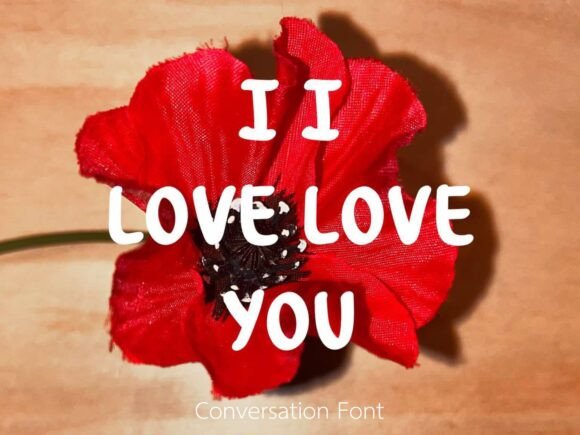
Express Love with Style: The Conversation Font ❤️✨
Are you looking for a font that speaks the language of love, warmth, and heartfelt emotions? Look no further than the Conversation Font. This charming, hand-drawn font is perfect for romantic messages, personalized cards, and heartfelt projects, allowing you to express your feelings in a unique and beautiful way.
Why Choose Conversation Font?
Playful and Handcrafted
The Conversation Font adds a personal, cozy vibe to your creations. Its handcrafted nature ensures that each letter and character is unique, giving your designs a touch of warmth and personality.
Versatile Use
This font is perfect for a wide range of applications, including greeting cards, wedding invitations, love letters, and more. Its versatility allows you to use it for various projects, making it a valuable addition to your font collection.
High-Quality Design
The Conversation Font boasts a crisp and professional design, making it ready to make an impact on any platform. Whether you’re designing for digital or print, this font ensures that your message is conveyed in a clear and elegant manner.
The Power of Typography in Emotional Expression
Typography plays a crucial role in emotional expression, and the Conversation Font is designed to help you convey your feelings in a way that resonates with your audience. The right font can evoke emotions, create a mood, and even influence the way your message is perceived. With the Conversation Font, you can add a touch of warmth, love, and personality to your designs, making them more relatable and engaging.
Perfect for Romantic Occasions
The Conversation Font is particularly well-suited for romantic occasions such as Valentine’s Day, anniversaries, and weddings. Its charming and hand-drawn nature makes it perfect for expressing your love and affection in a unique and beautiful way. Whether you’re designing a romantic message, a personalized card, or a heartfelt letter, this font is sure to help you convey your emotions in a way that touches the heart.
Example Use Cases:
- Valentine’s Day cards and messages
- Wedding invitations and stationery
- Anniversary greetings and messages
- Love letters and personalized cards
- Romantic quotes and phrases
Tips for Using Conversation Font Effectively
Pair with Other Fonts
To add visual interest and create a unique look, consider pairing the Conversation Font with other fonts. This can help you create a hierarchy of information and add depth to your designs.
Experiment with Colors
The Conversation Font looks great in a variety of colors, so don’t be afraid to experiment and find the perfect hue for your design. From soft pastels to bold and bright colors, the right color can help you convey the tone and mood of your message.
Use for Headings and Body Text
The Conversation Font is versatile enough to be used for both headings and body text. Use it to create a cohesive look and add a touch of personality to your designs.
The Benefits of Hand-Drawn Fonts
Hand-drawn fonts like the Conversation Font offer a unique set of benefits, including:
Personality and Character
Hand-drawn fonts have a unique personality and character that can add a touch of warmth and personality to your designs.
Flexibility and Versatility
Hand-drawn fonts can be used for a wide range of applications, from digital designs to print materials.
Emotional Connection
Hand-drawn fonts can help you create an emotional connection with your audience, making your message more relatable and engaging.
The Conversation Font is a beautiful and charming font that can help you express your love and affection in a unique and beautiful way. With its hand-drawn nature, versatility, and high-quality design, this font is perfect for romantic messages, personalized cards, and heartfelt projects. Whether you’re designing for Valentine’s Day, anniversaries, or just to say “I Love You,” the Conversation Font is sure to help you convey your emotions in a way that touches the heart.